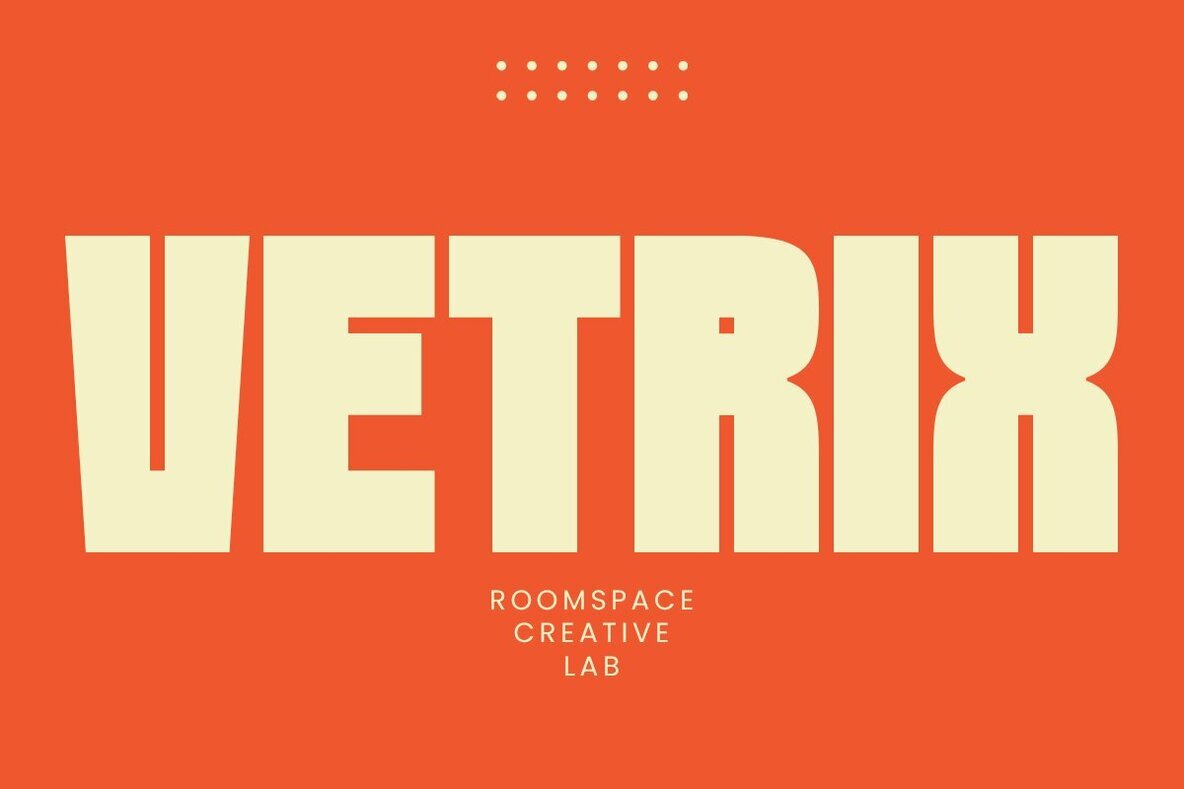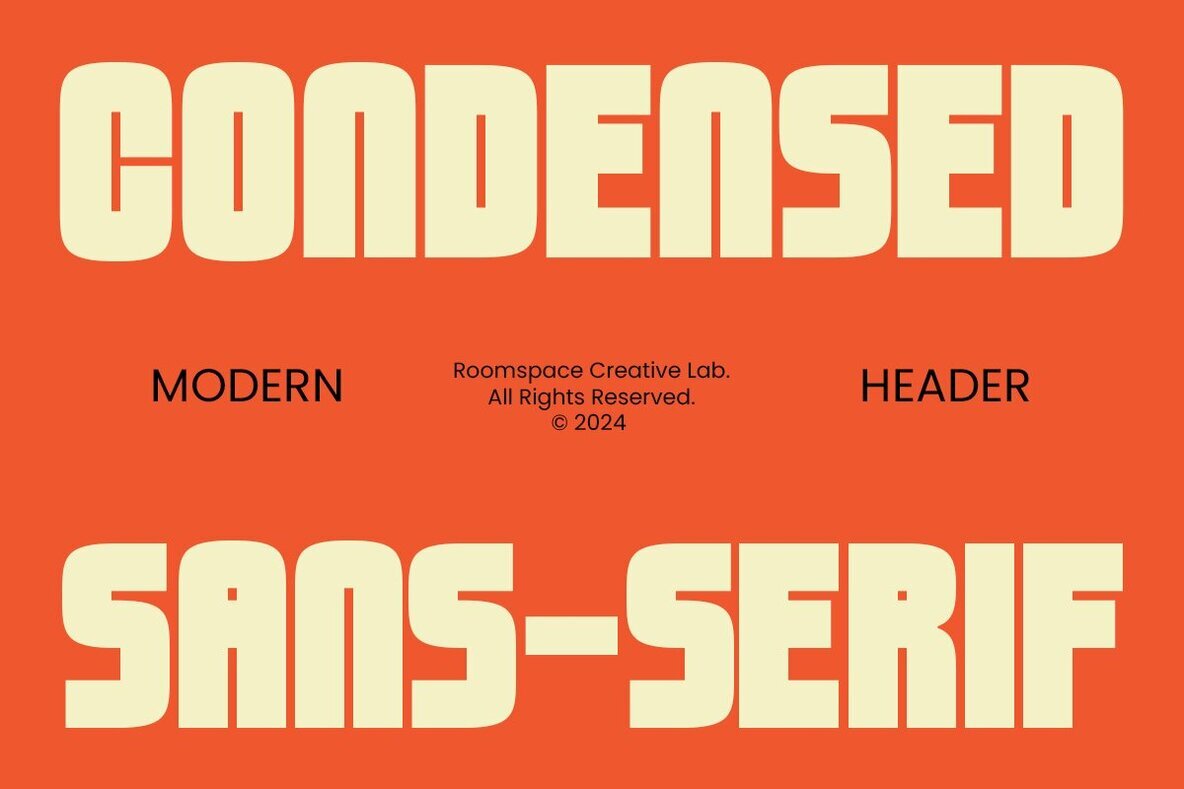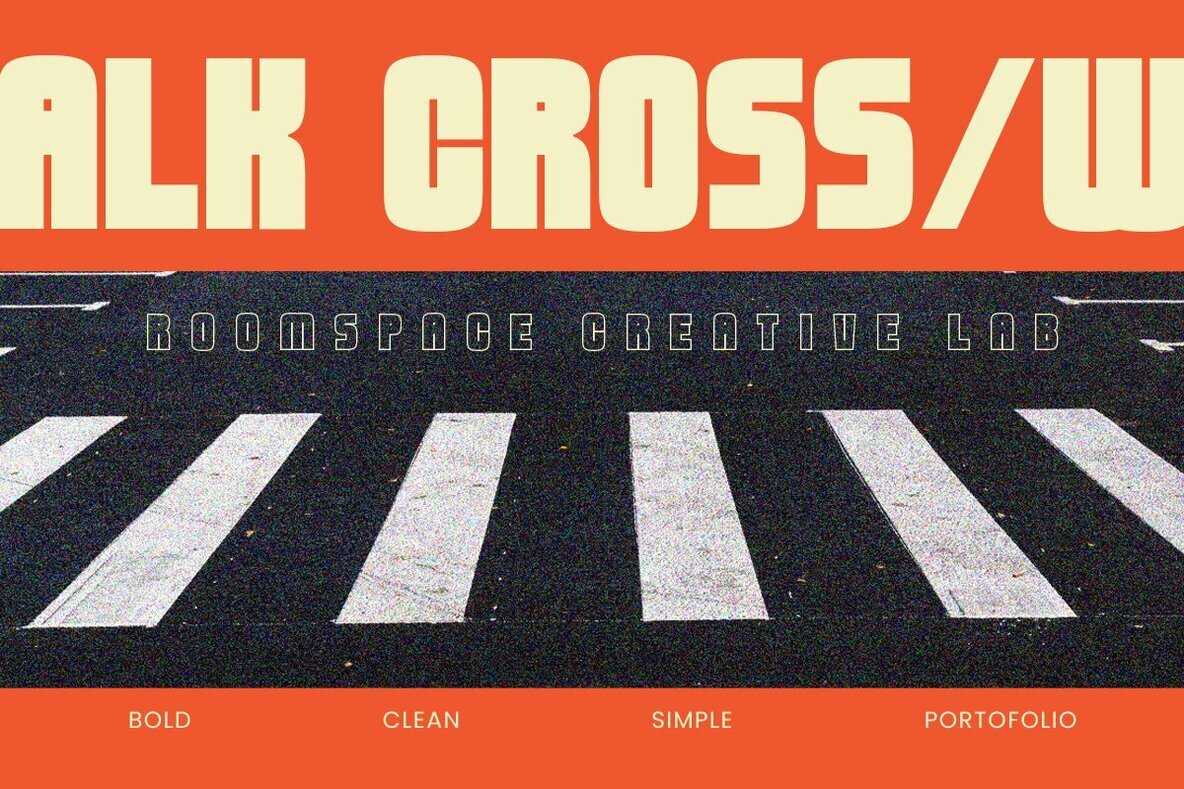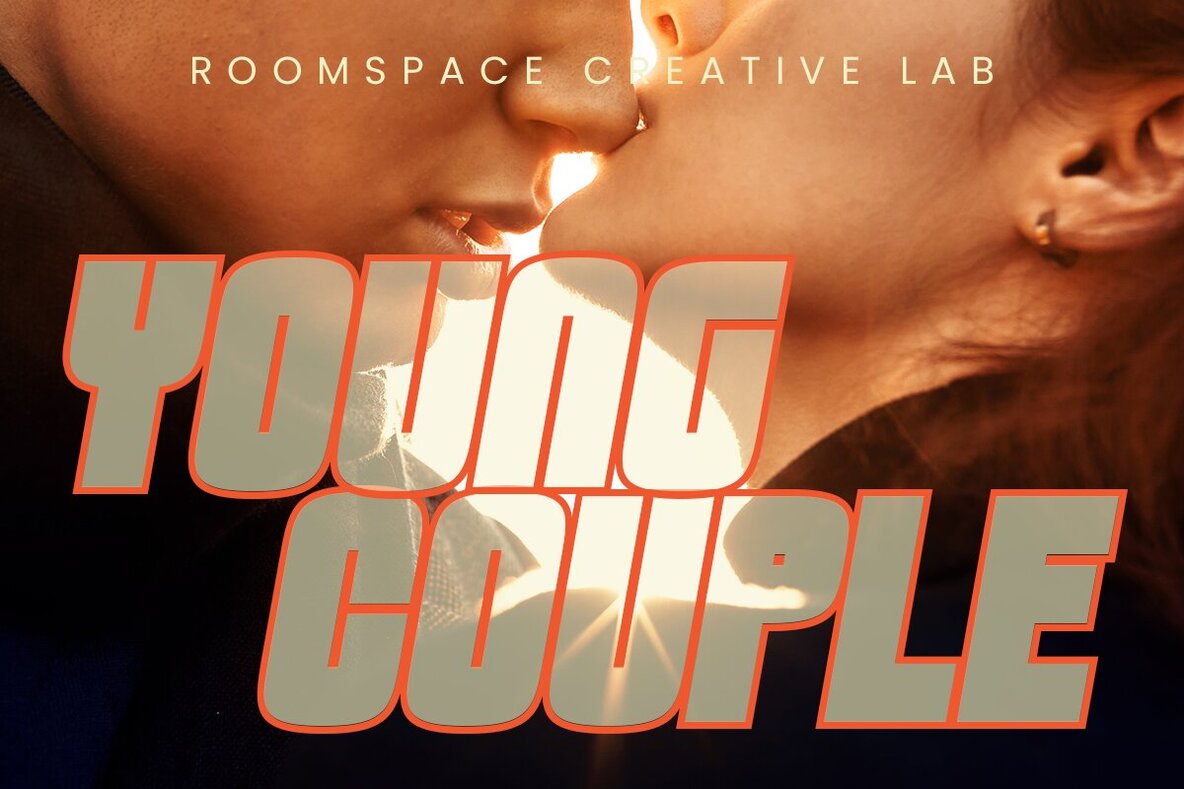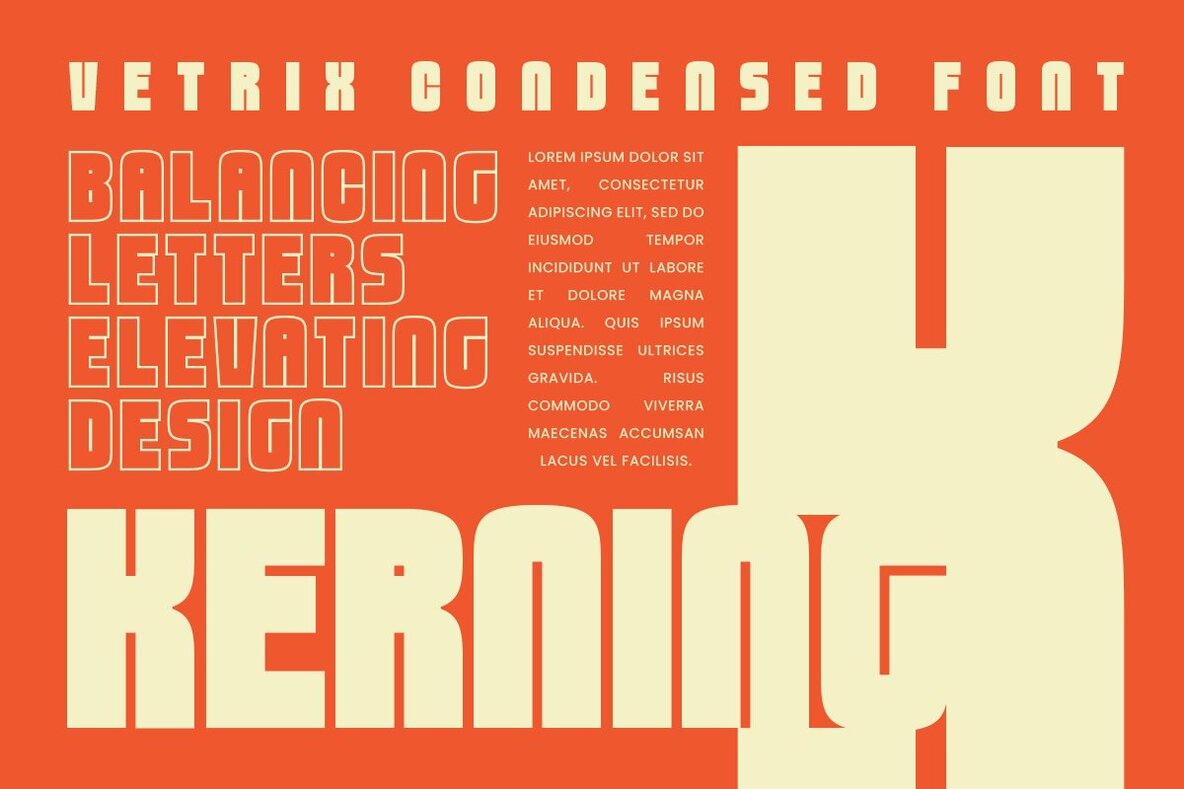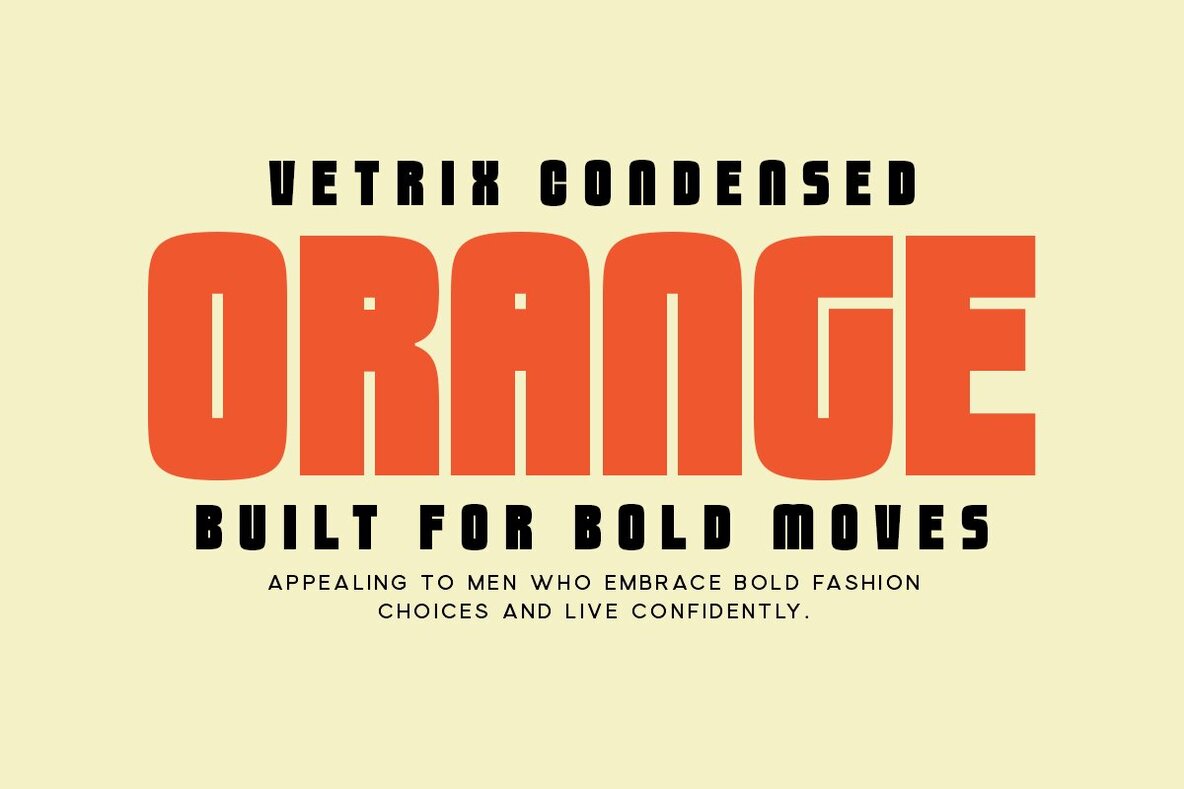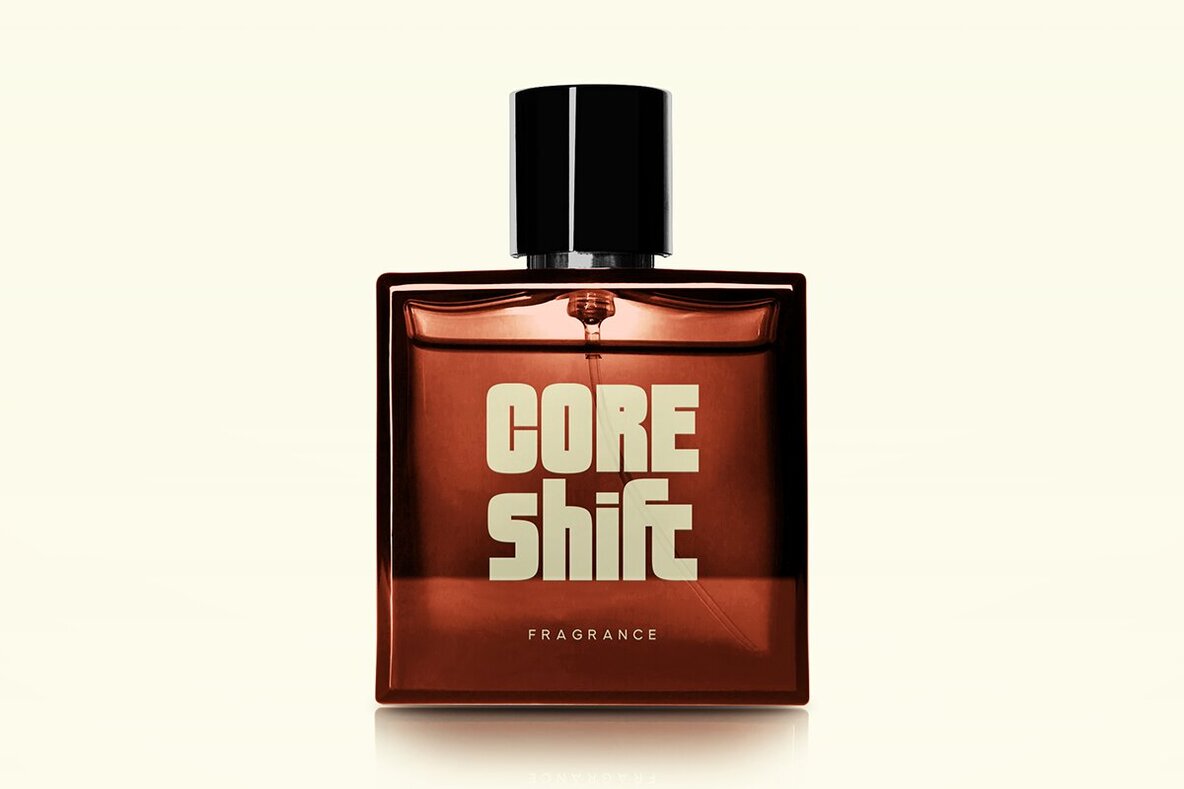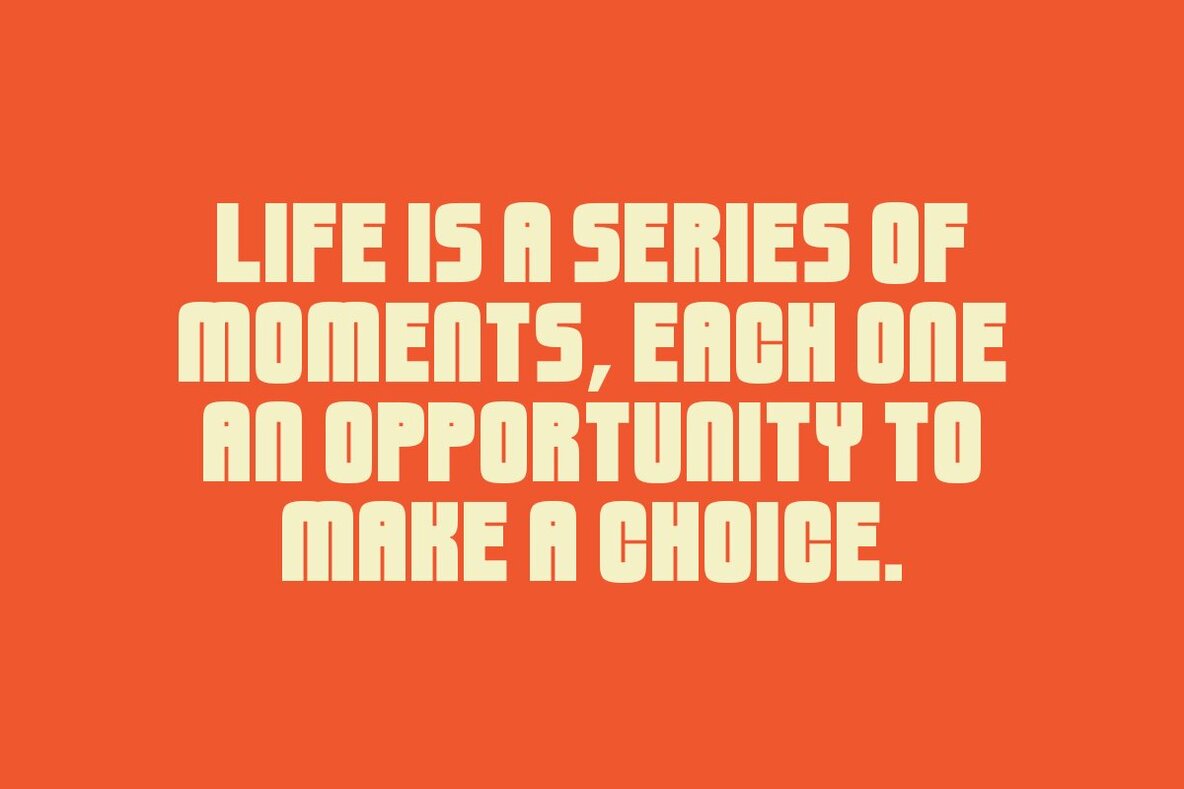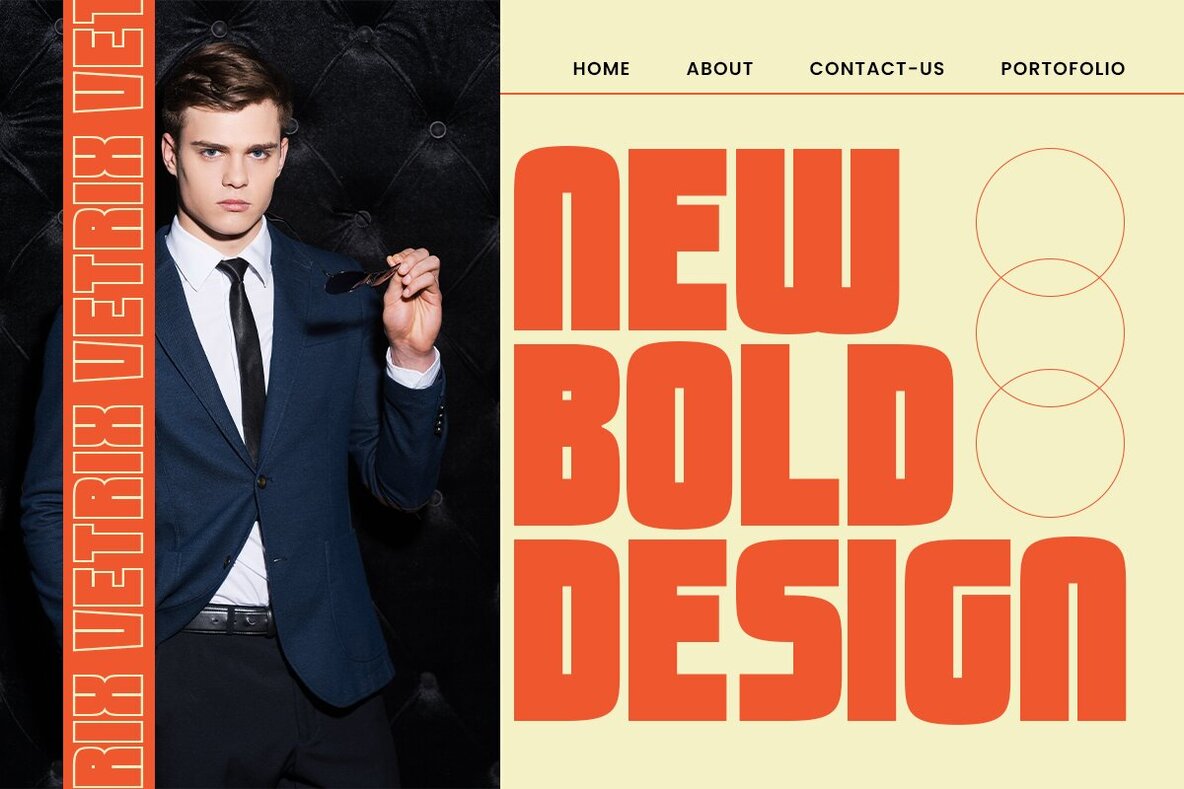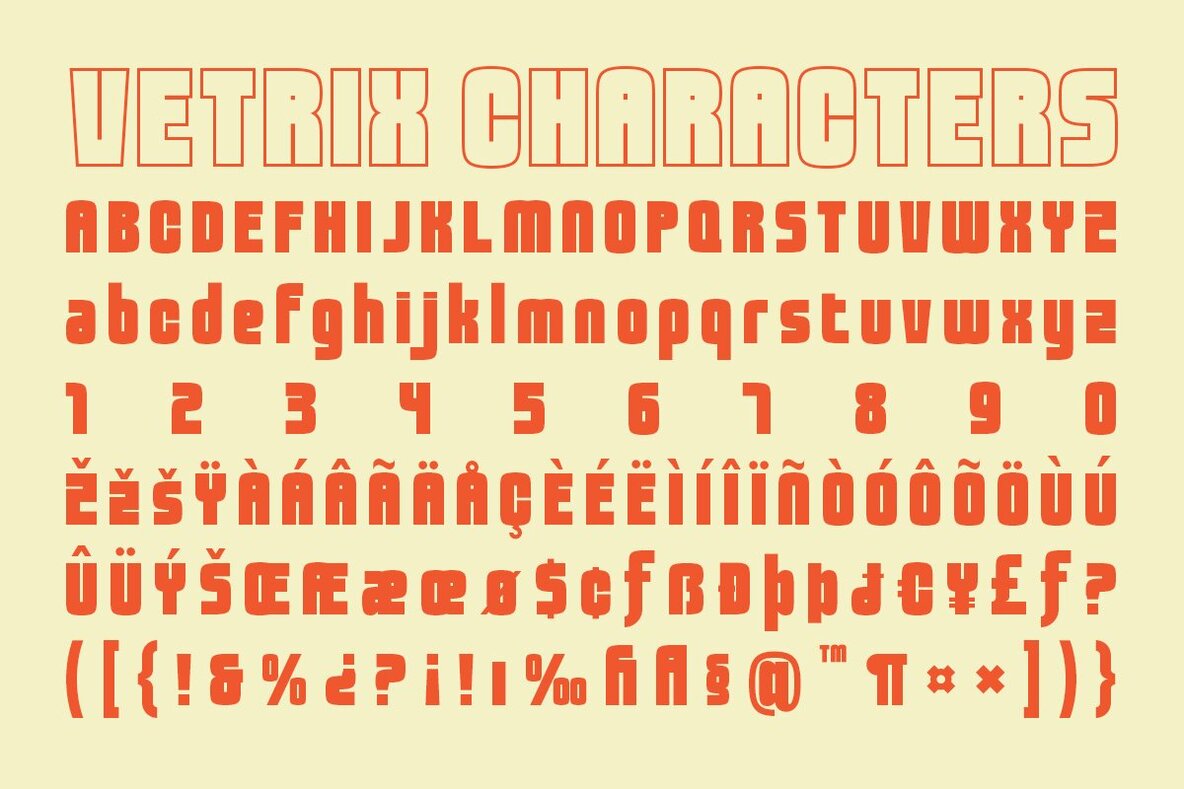
Vetrix Font
Vetrix is a sans serif font designed to infuse your creations with a sleek and futuristic flair. It ensures optimal readability while introducing a distinctive style—some capital letters feature unique modifications that captivate the eye. Whether you're creating brand identities, logos, or packaging, Vetrix serves as the perfect tool for projects demanding a modern and standout aesthetic.Vetrix: A Modern Twist on Sans Serif